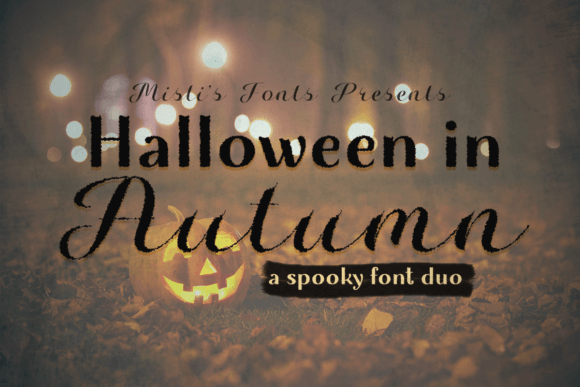
Venture into the Enchanted Thickets of Halloween in Autumn, Where Letters Dance with Bewitching Charm!
Step into the enchanting world of Halloween in Autumn, a font duo that will cast a spell on your creative endeavors. Its enchanting display typeface, meticulously crafted by Misti, blends a whimsical spirit with a touch of spooky elegance.
Halloween in Autumn is the perfect companion for your Fall-themed designs, conjuring an atmosphere of mystery and wonder. Let your imagination run wild as you utilize this captivating font duo, available in both regular and swash versions, to conjure magical invitations, spellbinding posters, or spine-tingling Halloween decorations.
Unleash the playful spirit of Halloween with the regular font, where letters playfully intertwine like mischievous ghosts frolicking through a moonlit forest. Or embrace the dramatic flair of the swash font, where each letter unfurls like a sorcerer's cloak, adding a touch of elegance and intrigue to any design.
But Halloween in Autumn's enchantment doesn't end there. It's a font duo that grants unimaginable versatility, adapting effortlessly to a myriad of creative projects. Enchant social media posts with captivating quotes, weave a web of intrigue in your blog posts, or brew a potion of creativity for your digital designs.
With Halloween in Autumn, you hold the power to transform ordinary words into captivating incantations and elevate your designs to extraordinary heights. Embrace the magic of this font duo and let your imagination take flight. Explore the bewitching possibilities and let your creativity flourish in the realm of Halloween in Autumn.
With Halloween in Autumn, you'll unveil a world of creative opportunities and bring your words to life with enchanting flair. Dare to embrace the mystique and let your designs dance with supernatural beauty.